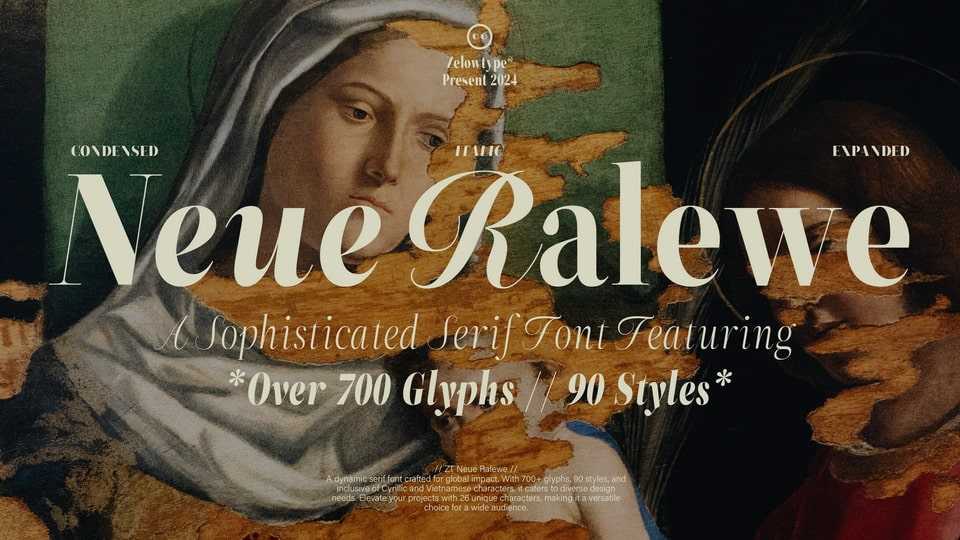
Download ZT Neue Ralewe font, a serif typeface that doesn’t just grace your creations; it transforms them into masterpieces. Deliberately spaced for a choreography of sophistication, ZT Neue Ralewe is where style and readability engage in a dance of visual poetry.
Designer: Zelow Type